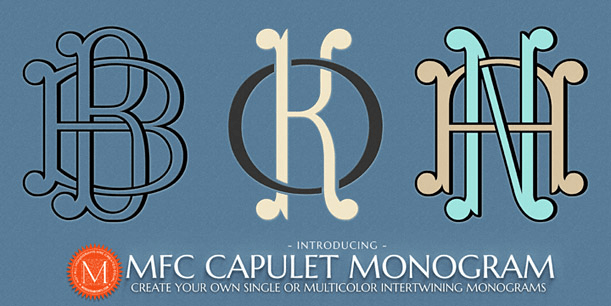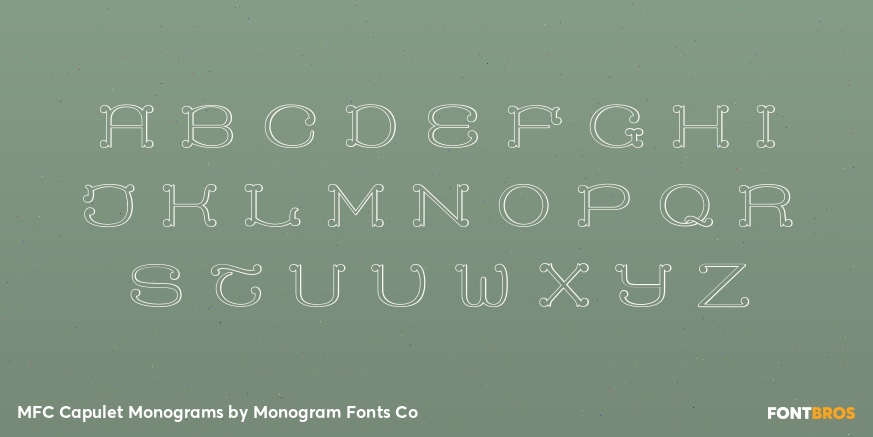
MFC Capulet Monograms
Font Family by Monogram Fonts Co
The inspiration source for MFC Capulet Monogram is an alphabet set from the book, Monograms and Alphabets for Combination by Dollfus Mieg & Cie, first published in the 1890s. What began as 26 referenced outline/shadowed letters became an over 800 character font in order to create its unique interwoven monogram effect! Expanding on the theme even more, MFC Capulet Monogram also includes a series of Chromatic Layering fonts to create even more customization options.
Capulet Monogram can create one, two, or three letter monograms as well as a unique two letter intertwined monogram style - made by simply typing a lowercase immediately followed by a Capital (using OpenType Ligatures). Classic decorative letterforms combine to make elegant monograms, and you can also choose to type in all capitals or all lowercase for simple title and headlines as well. (Note that due to the manner in which combination monograms are formed, some letters like the "I" will change to script-like forms to avoid being hidden in overlaps).
MFC Capulet Monogram is the original Outline/Shadowed style. MFC Capulet Monogram Solid is a version with the original outline filled in. MFC Capulet Monogram One is the Capital letterforms only in both standard and ligature glyphs. MFC Capulet Monogram Two is the Lowercase letterforms only in both standard and ligature glyphs. MFC Capulet Monogram Stencil contains the inner fill of the original Outline/Shadowed style, and while the standard Capitals & Lowercase do not appear as stencil in style, the ligatures are.